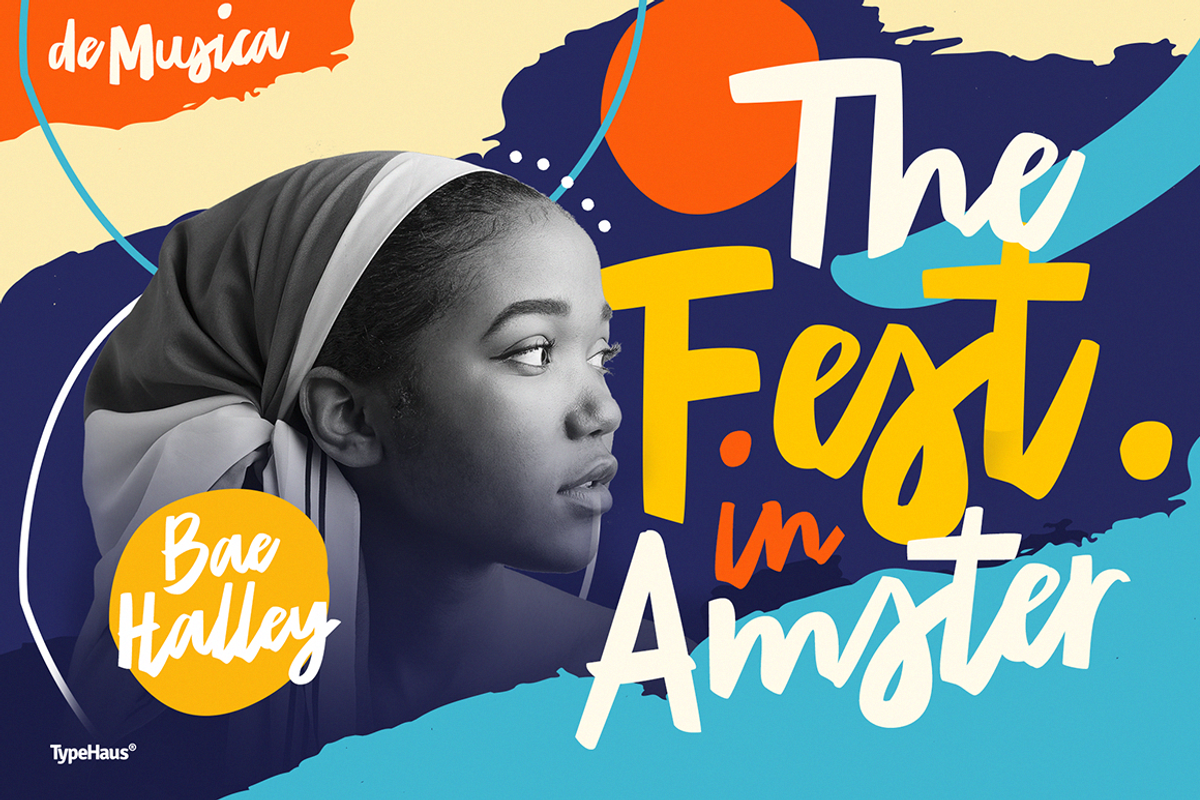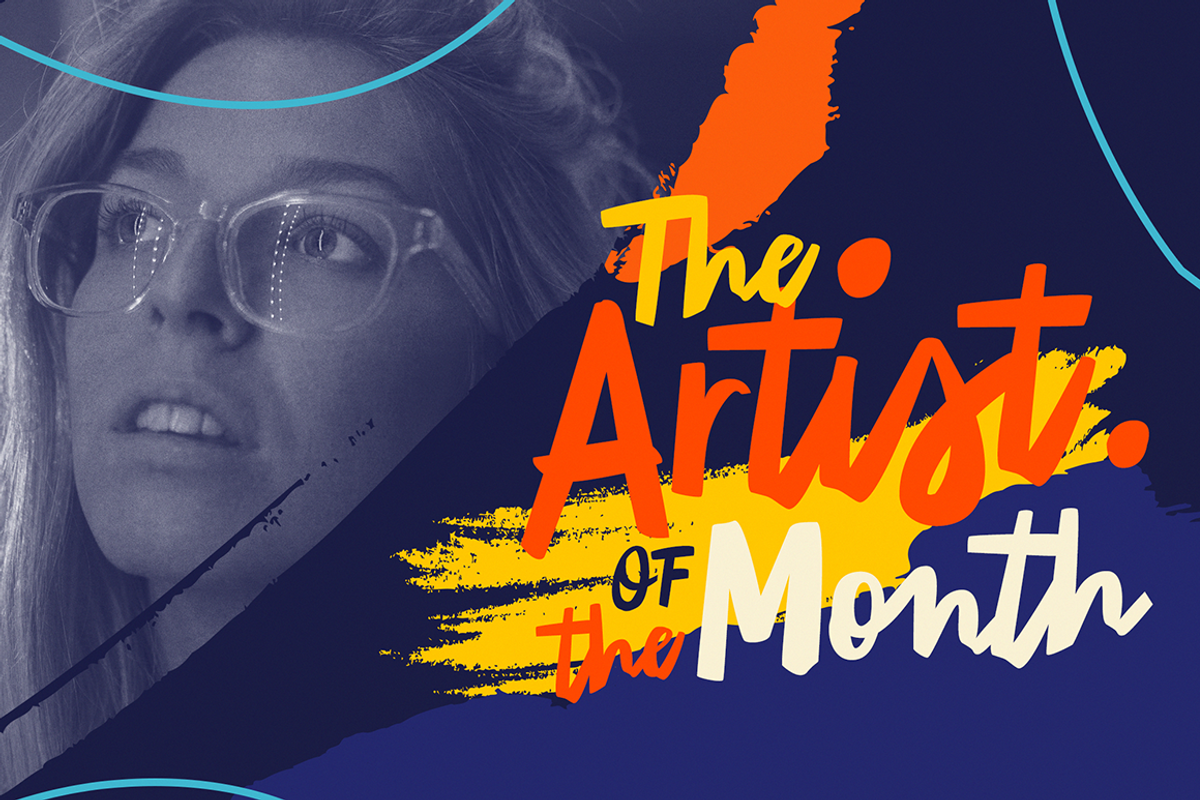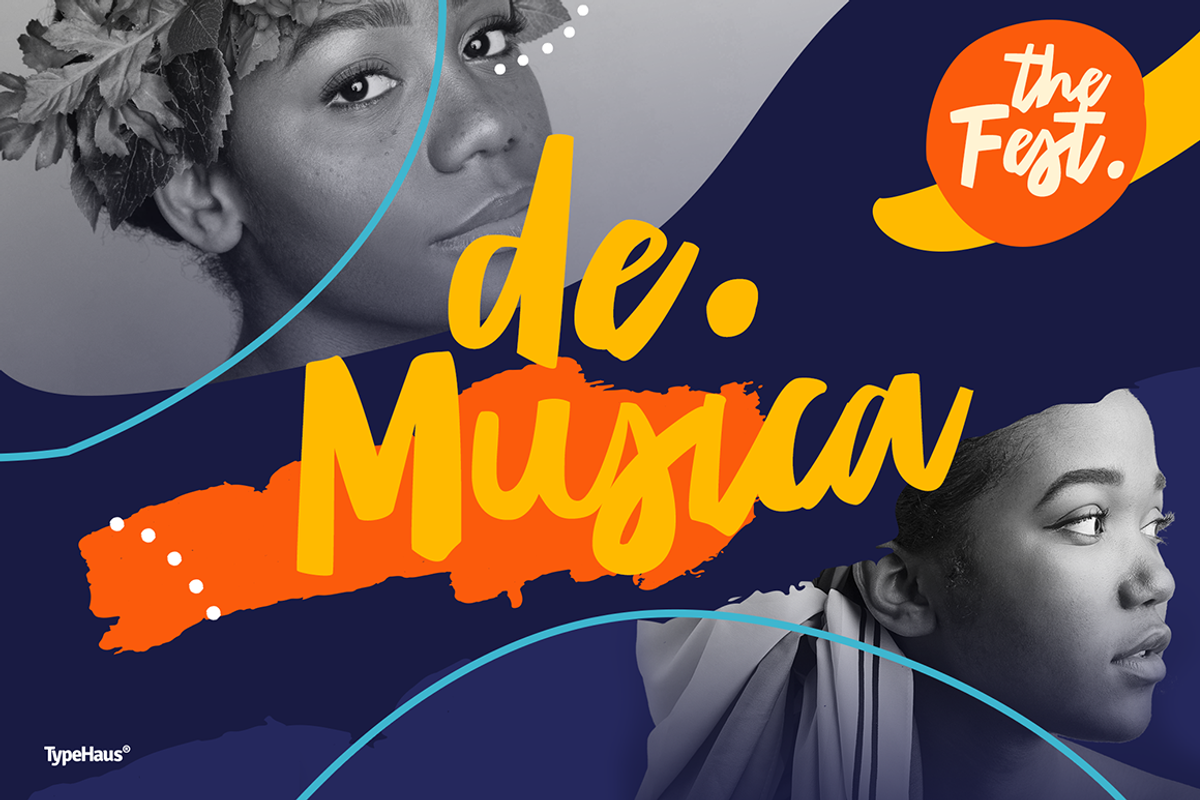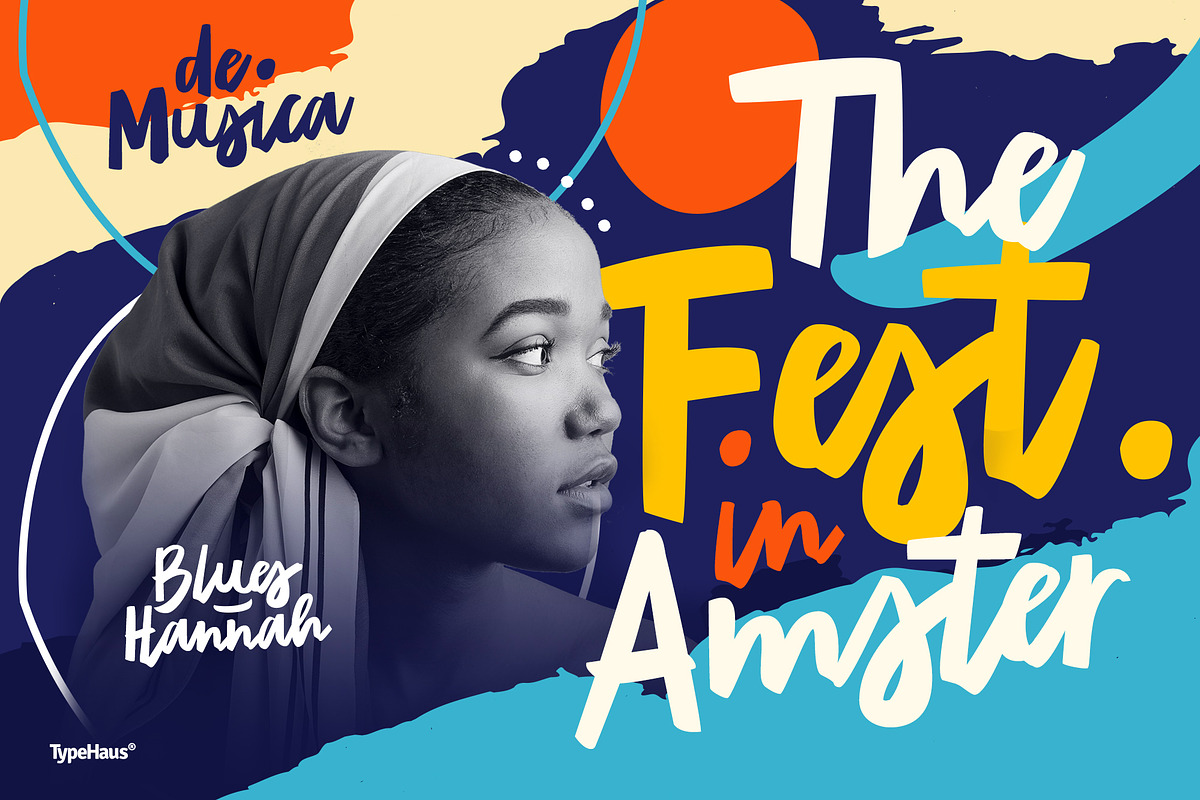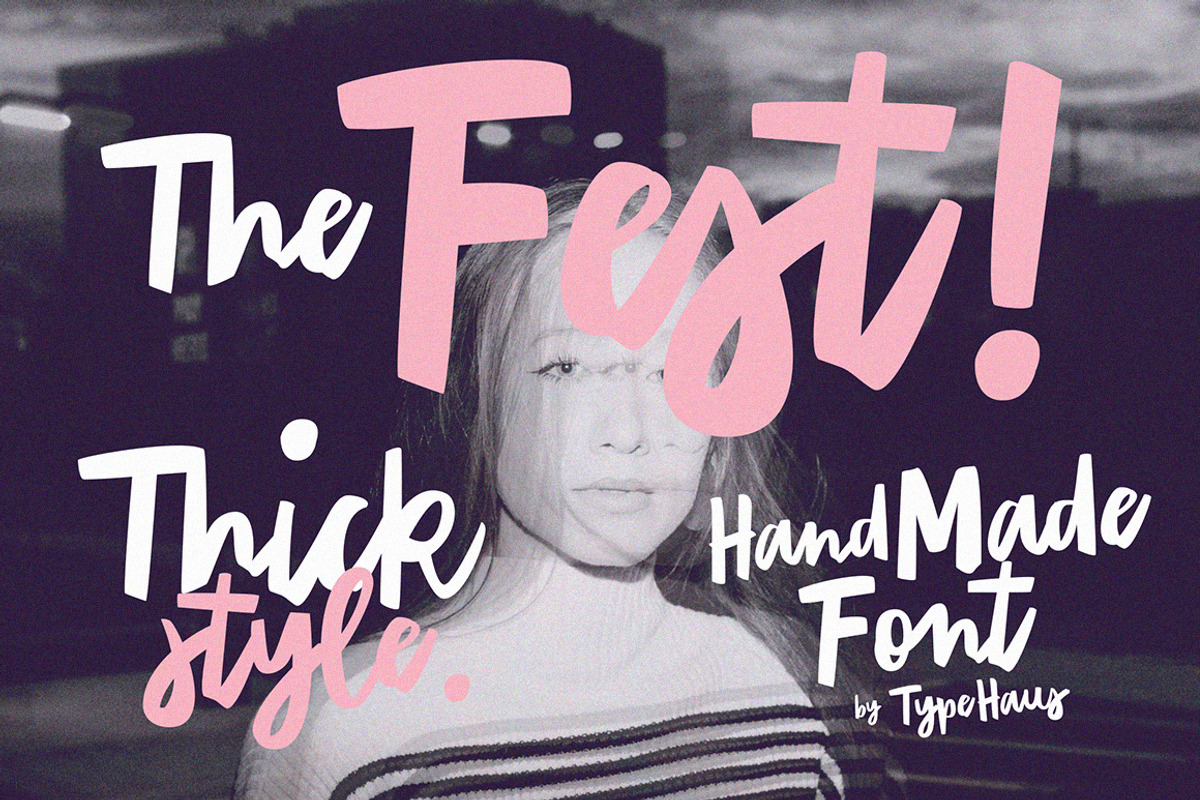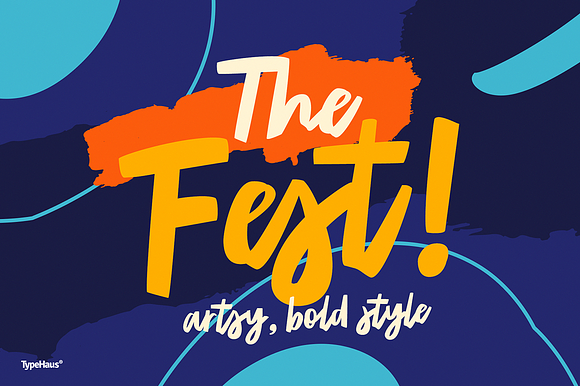
The Fest - Bold Artsy Fonts
BRAND NEW FONT FROM TYPEHAUS
Introducing, THE FEST
Take your design game to the next level with a bold, thick and expressive font that truly looks hand painted. The Fest uses authentic looking fonts and is sure to grab the attention of customers and designers alike.
Regular Font (TTF/OTF) - We made 2 styles for The Fest, it;s let you explore and improve the personality of your design works. This version is also great for blocks of text and small print.
Slanted - With a little improvement for the slanted version, The Fest Slanted is fit for the any size. These style is alternative of your choices for the look.
The Fest - Bold Artsy Fonts by RKS-Studio fits naturally into Branding, posters, packaging, typography.